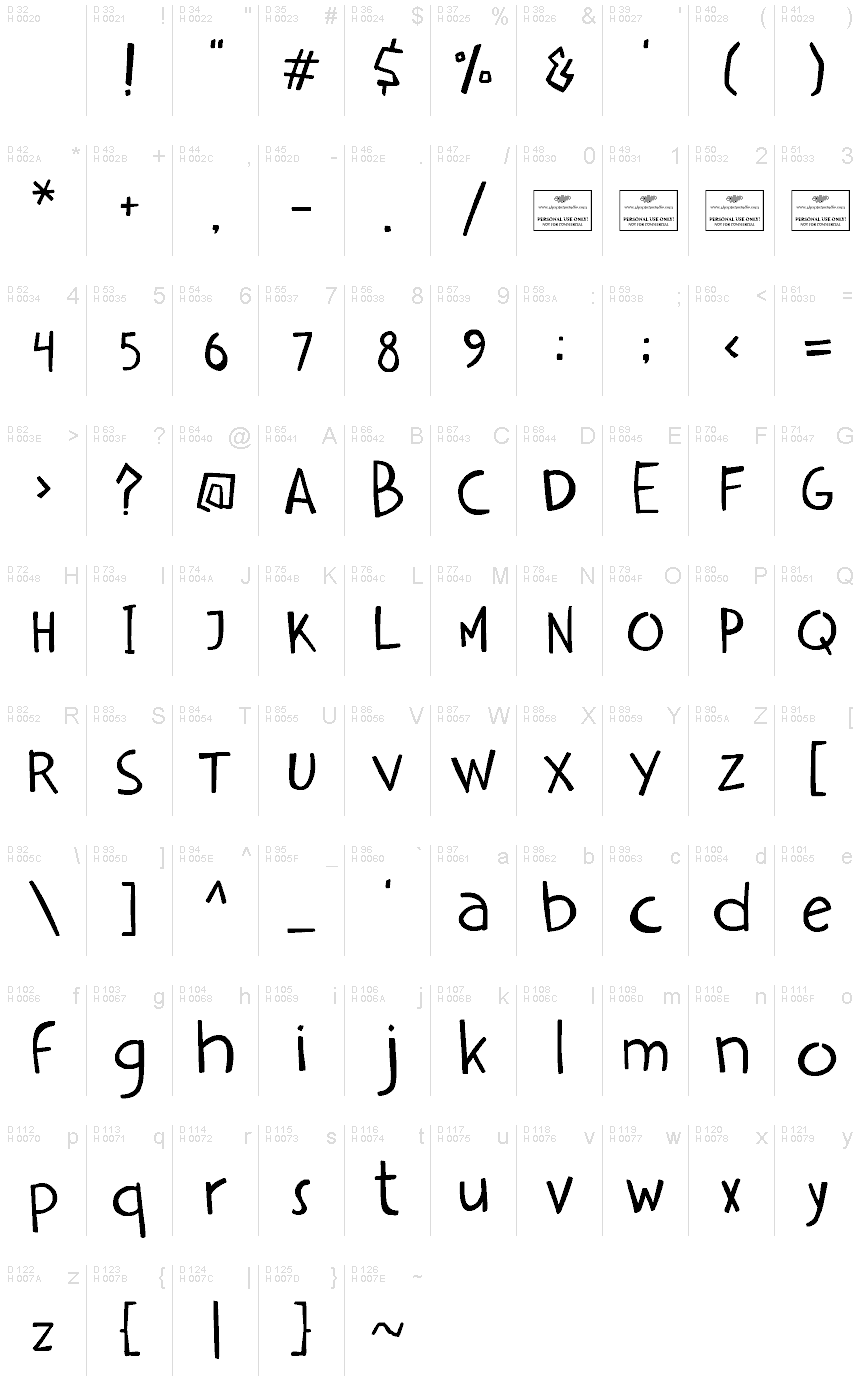
Amberly
Amberly font is an engaging display type by Alpaprana Studio, created with cartoon styles and casual vibes. The characters are friendly and approachable, their lines are all connected, and the handwriting letters managed to look set naturally. Whether you require a subtle font or one that makes an impact, Amberly can offer both due to its variation in boldness.
Use this free handwritten font in creating greeting cards, invitations, children’s books magazines titles or headlines. Branding designs for logos and visual identities can equally be tried out along with packaging ideas for stationery products like paper notebooks.